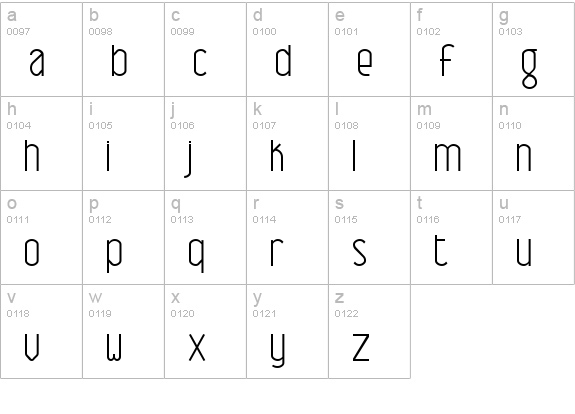
Name This Font Normal is the standard, neutral variant in the Name typeface family \xE2\x80\x94 well suited to general body text, paragraphs, and standard typographic work.
Name This Font Normal is a versatile and stylish font that exudes elegance and sophistication. Its clean lines and modern look make it perfect for a wide range of design projects, from branding to editorial design. This font strikes the perfect balance between professionalism and creativity, making it a great choice for both business and personal use. The best part is that Name This Font Normal is available for free download at FontsMarket.com. This means you can easily access this high-quality font without any cost, making it a valuable addition to your font library. Don't miss out on the opportunity to enhance your designs with this beautiful and versatile font. Download Name This Font Normal today and elevate your creative projects to the next level.